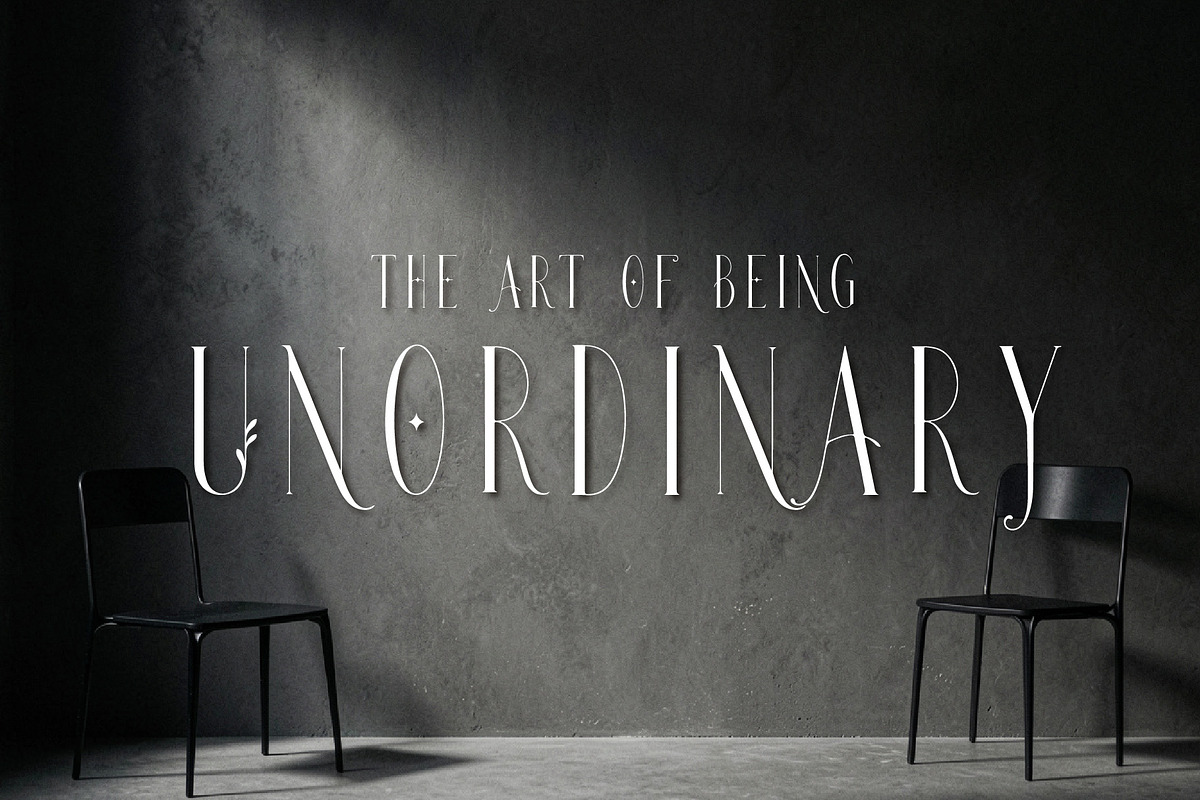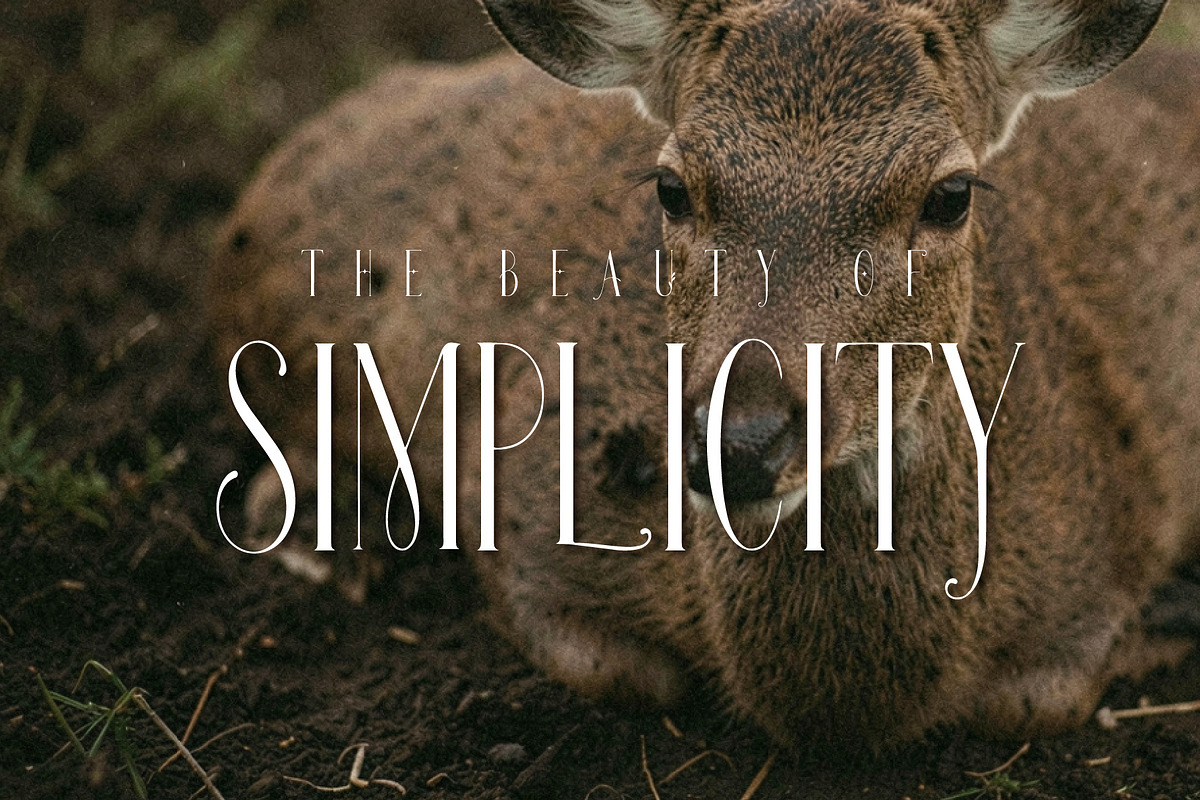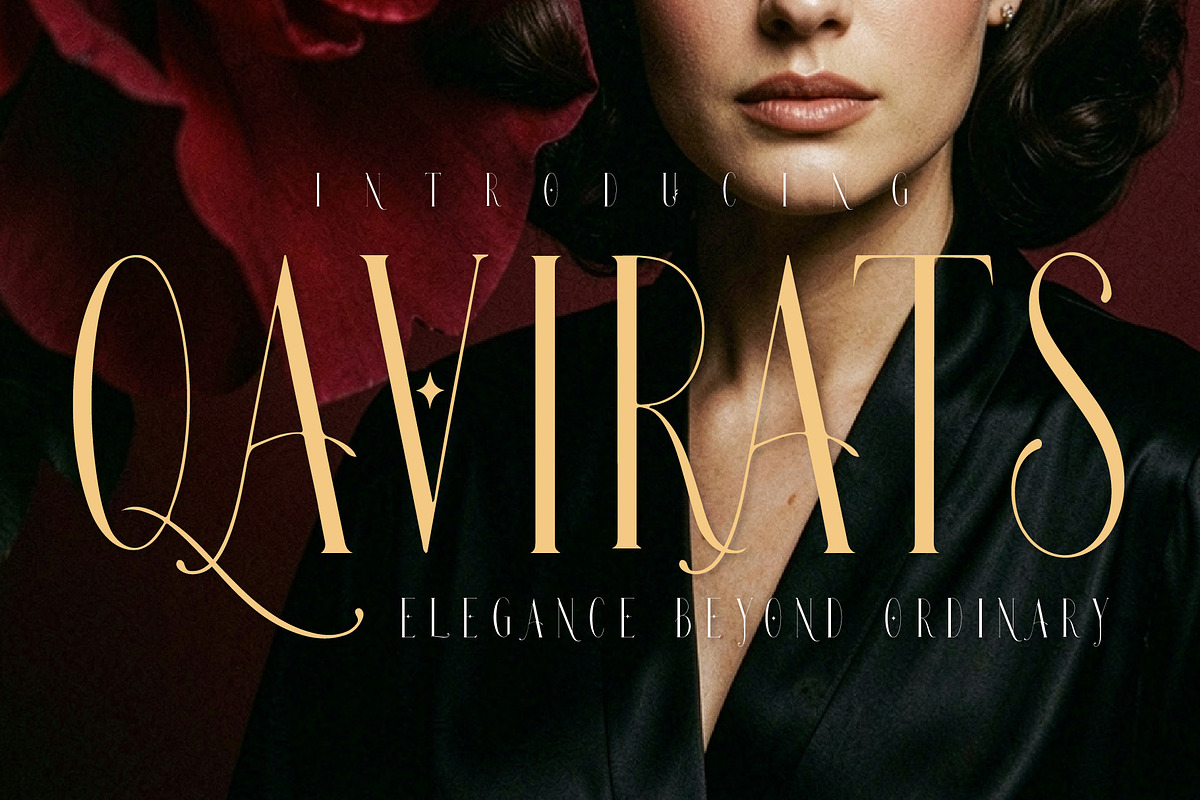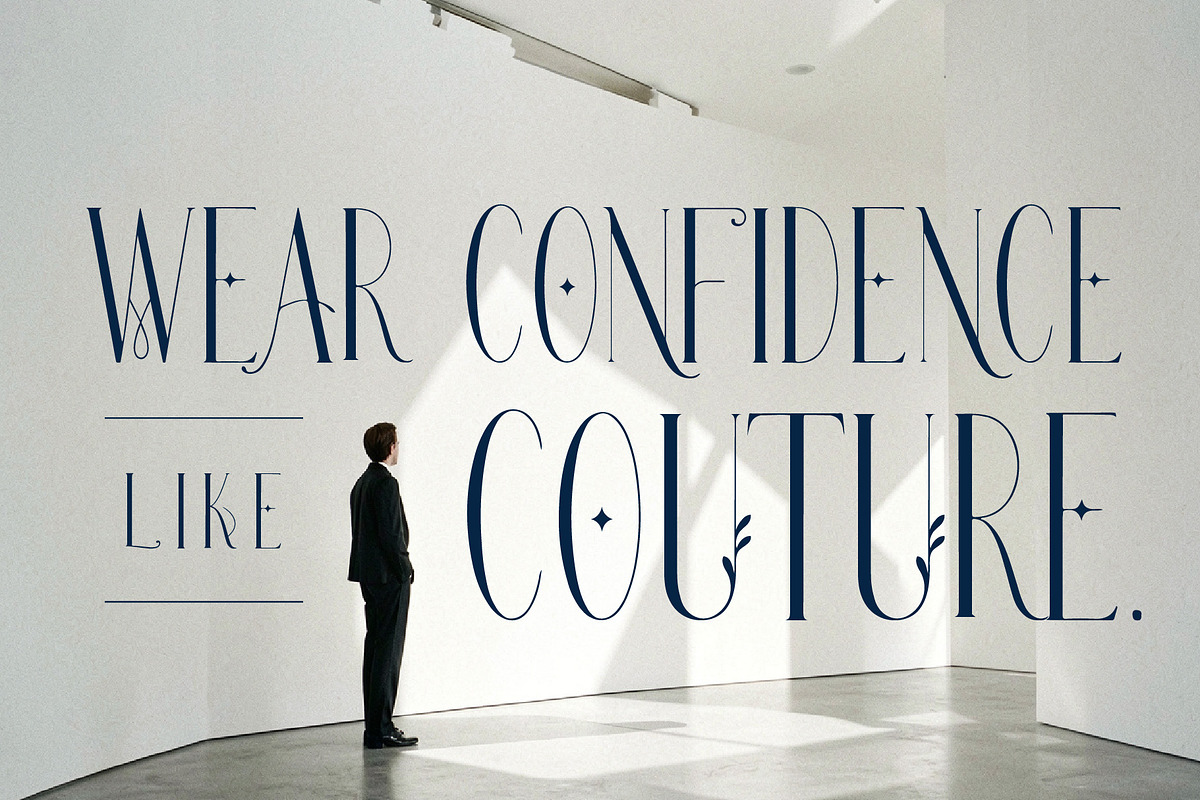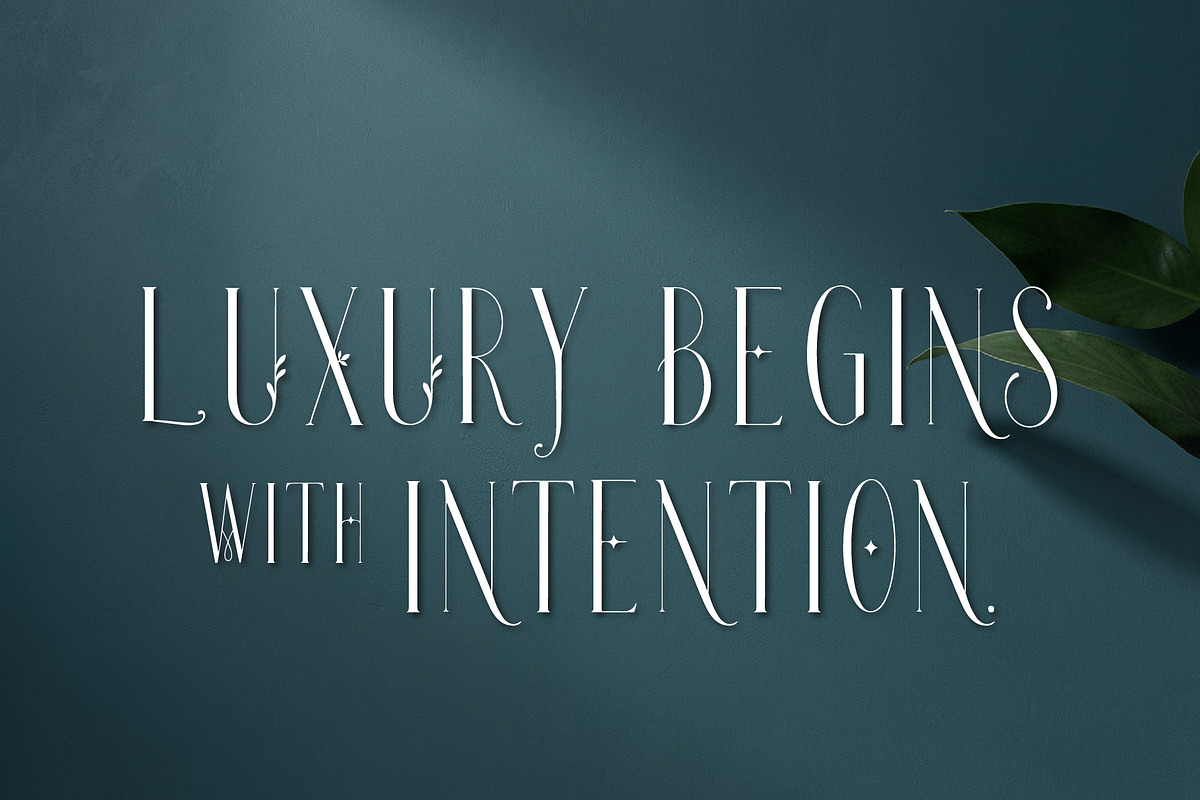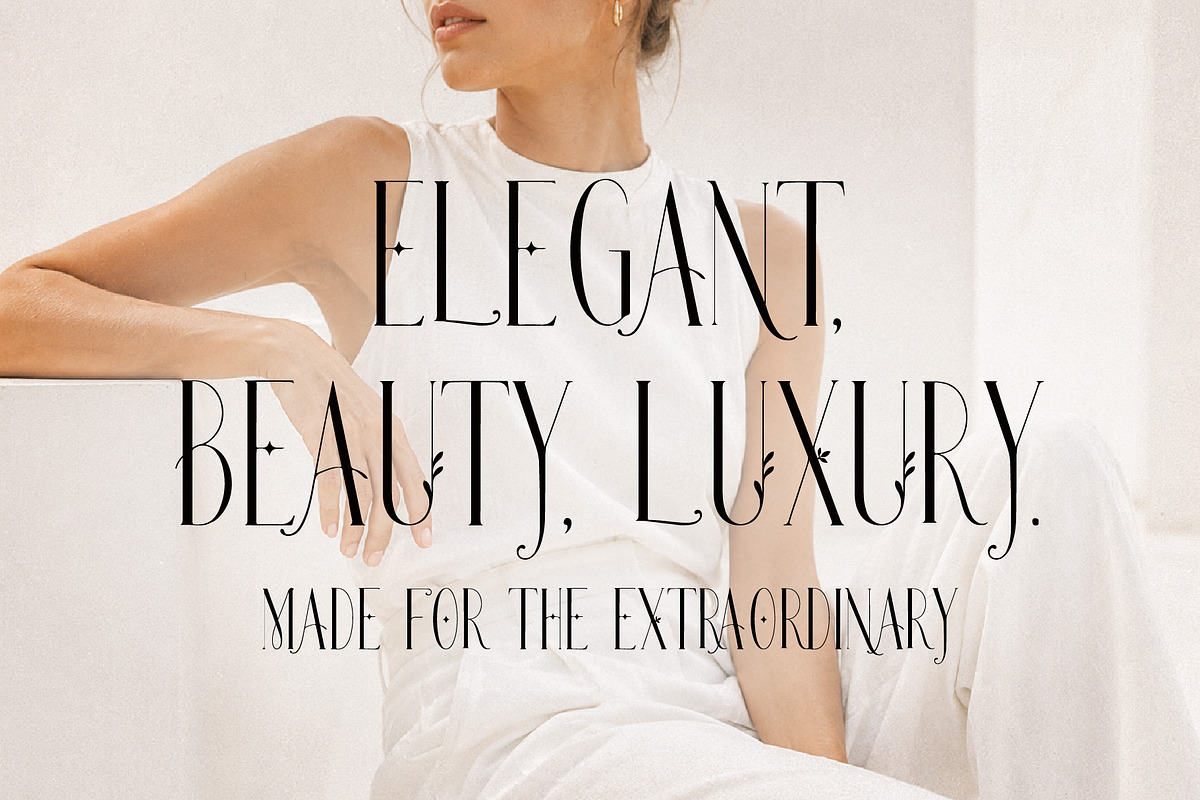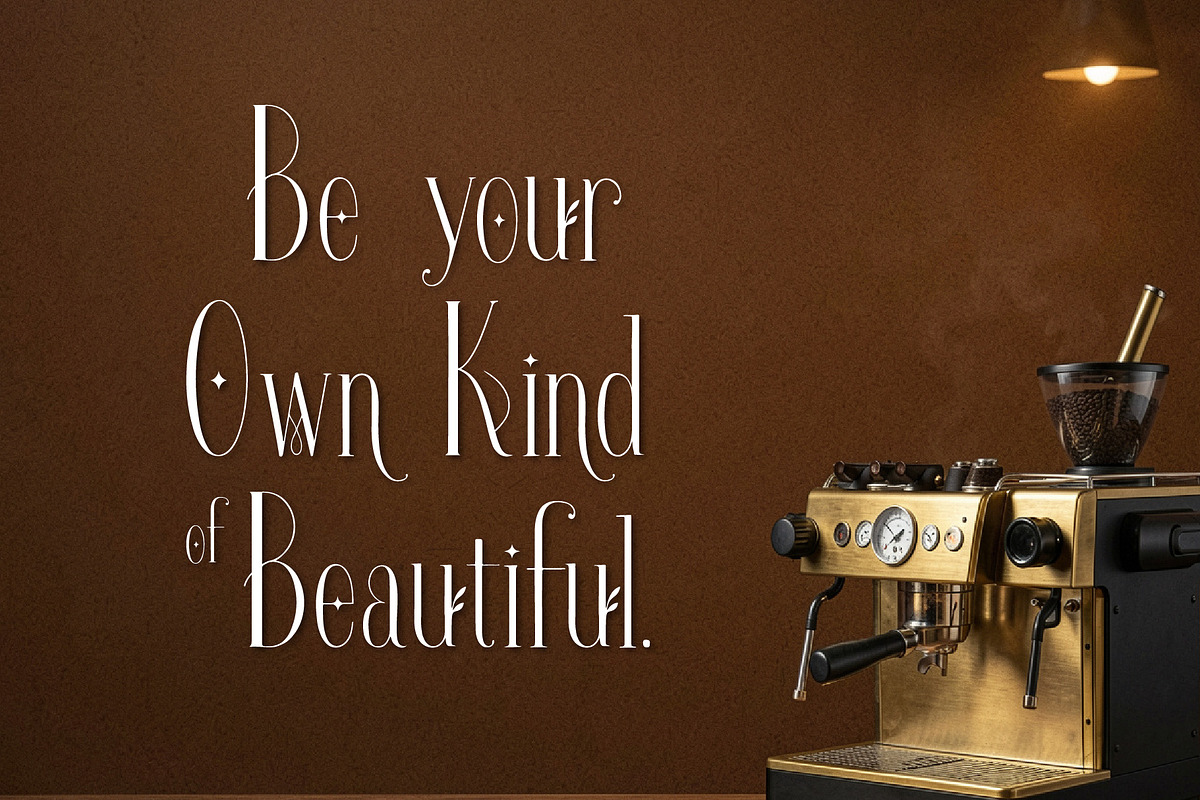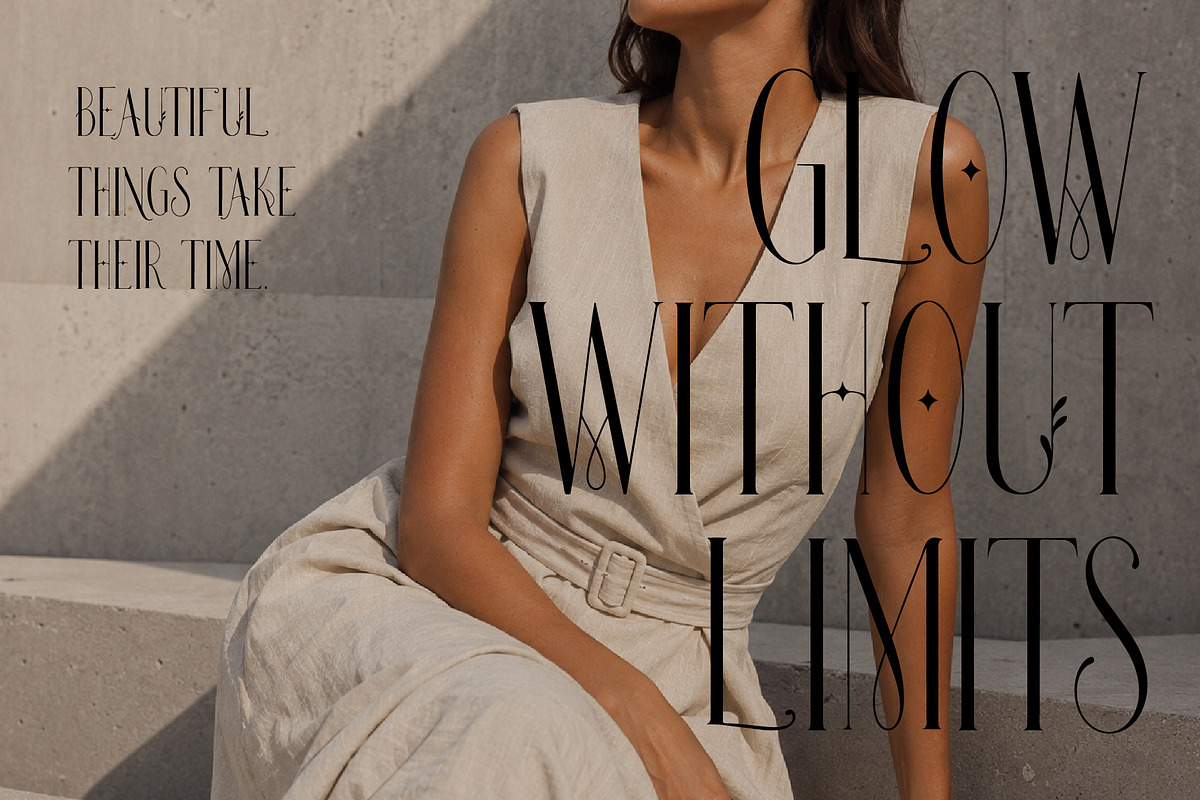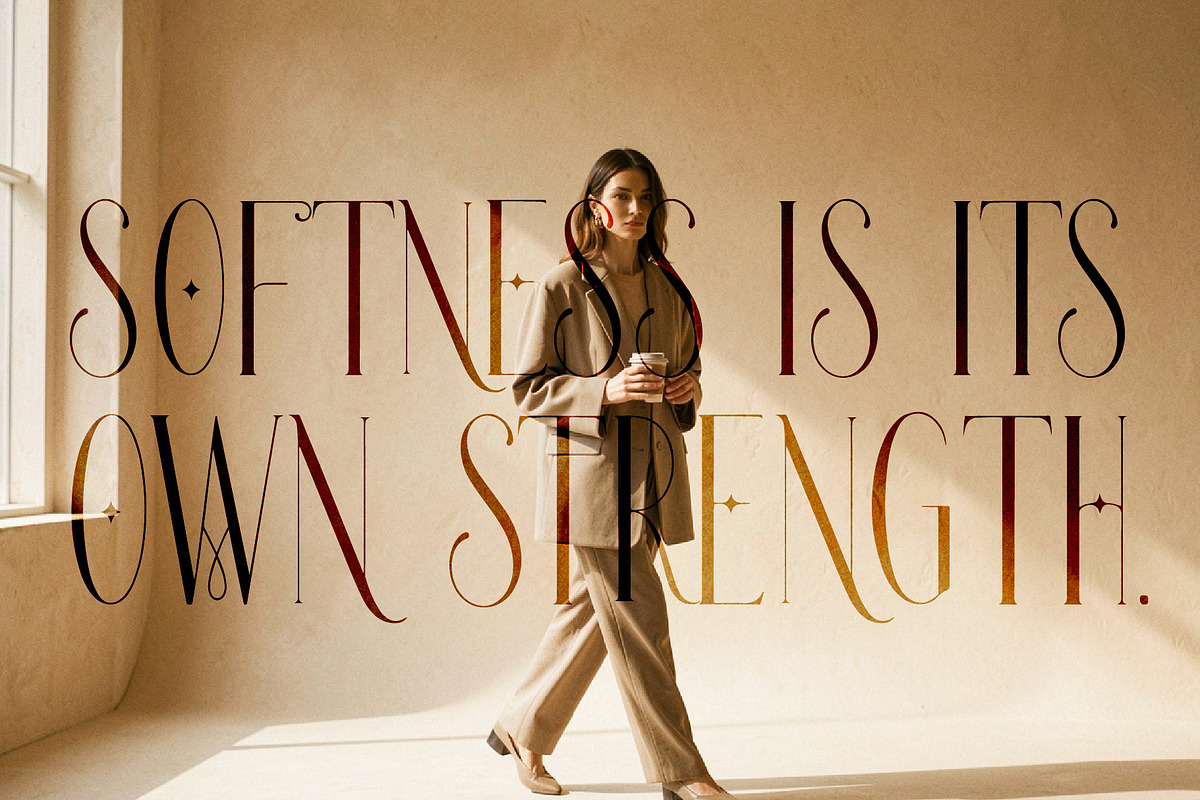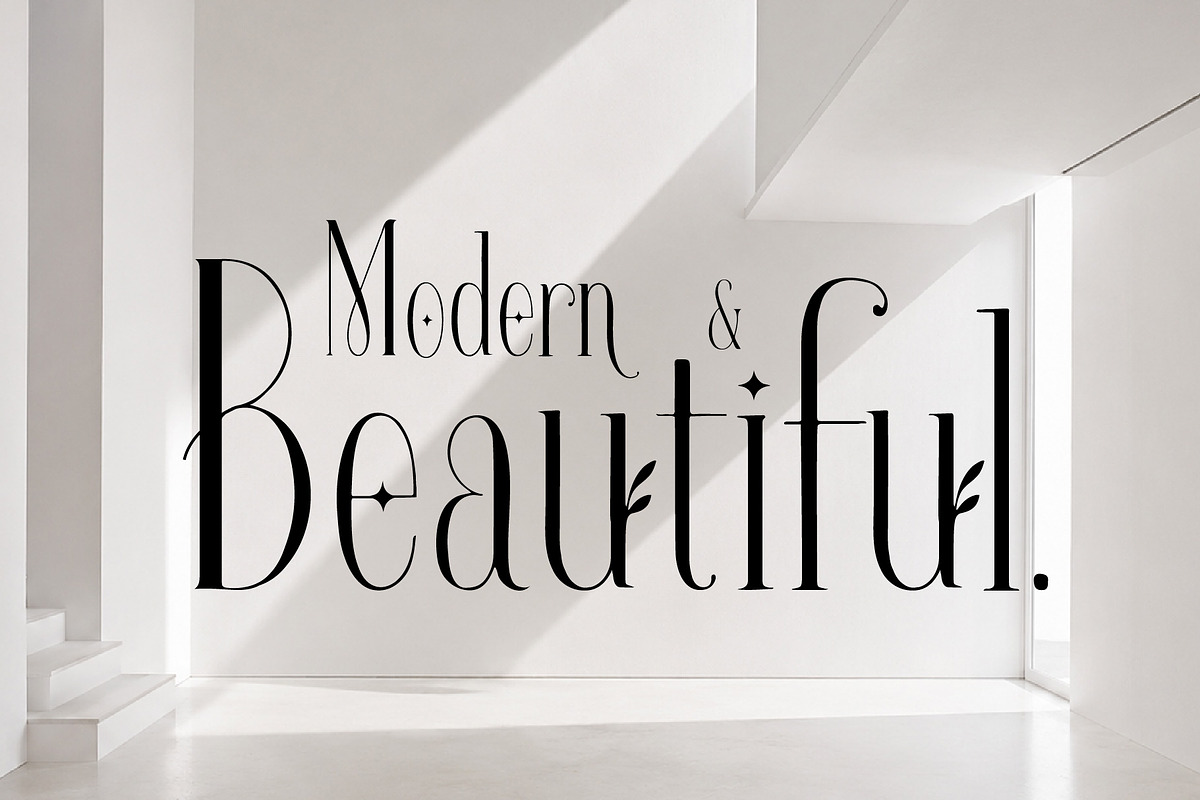
Qavirats - Tall Refined Luxury
Qavirats is a tall, elegant serif designed for beauty, fashion, and sophisticated visual identities. With its elongated proportions, refined contrast, feminine curves, and subtle decorative details, Qavirats brings a luxurious editorial character to every word.
Non-ordinary yet effortlessly elegant, Qavirats is made for designs that want to feel exclusive, graceful, and memorable. Its delicate decorative touches add personality without overpowering the clean silhouette, making it equally beautiful in bold headlines, fashion campaigns, branding, packaging, invitations, and editorial layouts.
Qavirats is where feminine elegance meets modern luxury.